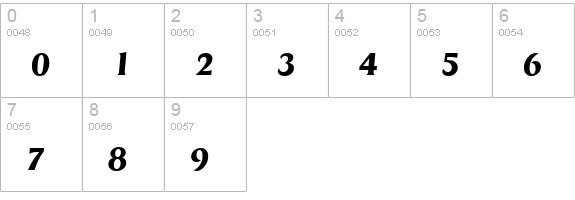
DragonSerial-Xbold-Italic is a distinctive, italic variant in the DragonSerial typeface family \xE2\x80\x94 well suited to design and typography projects.
Introducing DragonSerial-Xbold-Italic font, a striking and dynamic typeface that exudes a sense of power and elegance. With its bold letterforms and dramatic italicized slant, this font is perfect for making a statement in your designs. The DragonSerial-Xbold-Italic font is versatile and can be used for various design projects, from logos to posters to branding materials. What's even better is that DragonSerial-Xbold-Italic font is available for free download at FontsMarket.com. This means you can easily access this eye-catching font and incorporate it into your projects without any cost. Don't miss out on the opportunity to add this unique and impactful font to your typographic arsenal. Download DragonSerial-Xbold-Italic font today and let your designs soar to new heights!